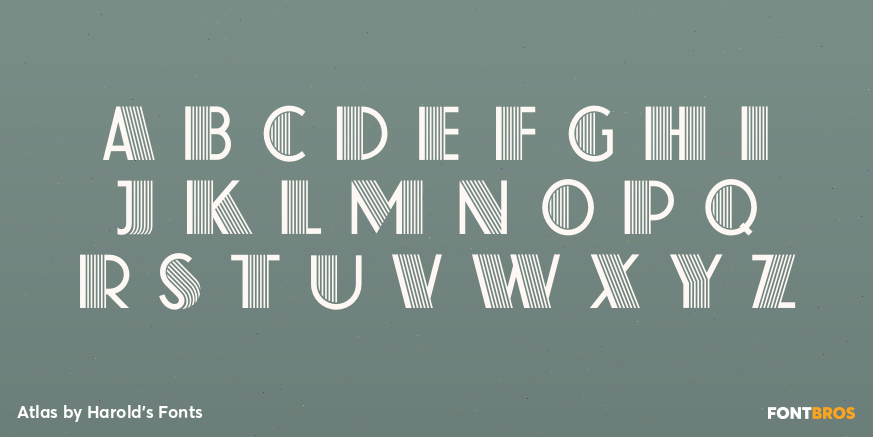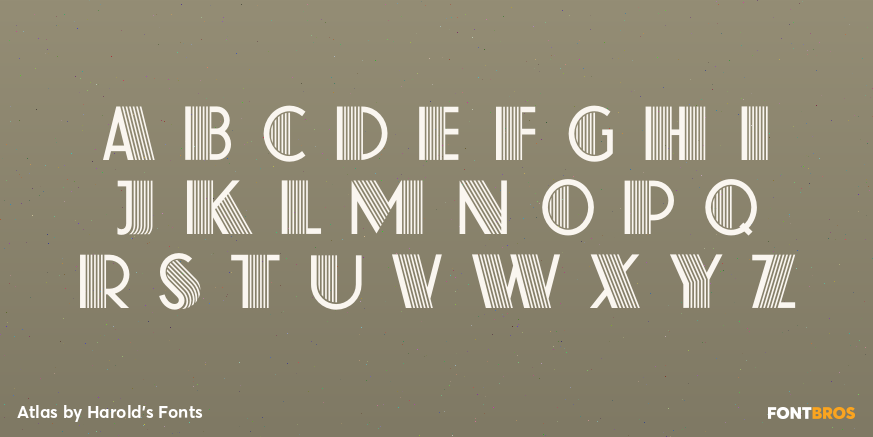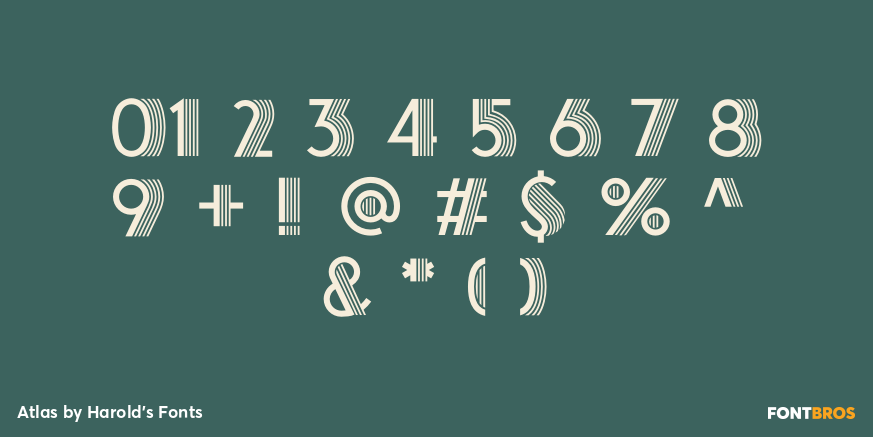
Atlas
ATLAS captures the bold glamour of the Art Deco period. Inspired by a classic analog font, ATLAS comes in two varieties: original with dazzling pinstripes and solid with just the one.
Since originally creating these in 2001 under the name Farouk as I'd seen it identified. I have learned much more about the original design that goes back all the way to 1933 when it was designed by K[arl] H[ermann] Schaefer for the German type foundry Schriftguß AG as Fatima Versalien [Versalien = uppercase]. In the same year, Fonderie Typographique Française published their version of Fatima Versalien under the name Atlas. His grandson Stephan Schaefer has also told me it was also known in Poland as Goplo and in Italy as Reclame. The solid version of Fatima is Capitol Versalien (Baltyk in Poland and Titan in France), which was designed in the same year as Fatima. Stephan is looking for more information on his grandfather's type designs that include a beautiful script known in Germany as Orchidea.
Version 1.5 includes an expanded character set, improved spacing and kerning.